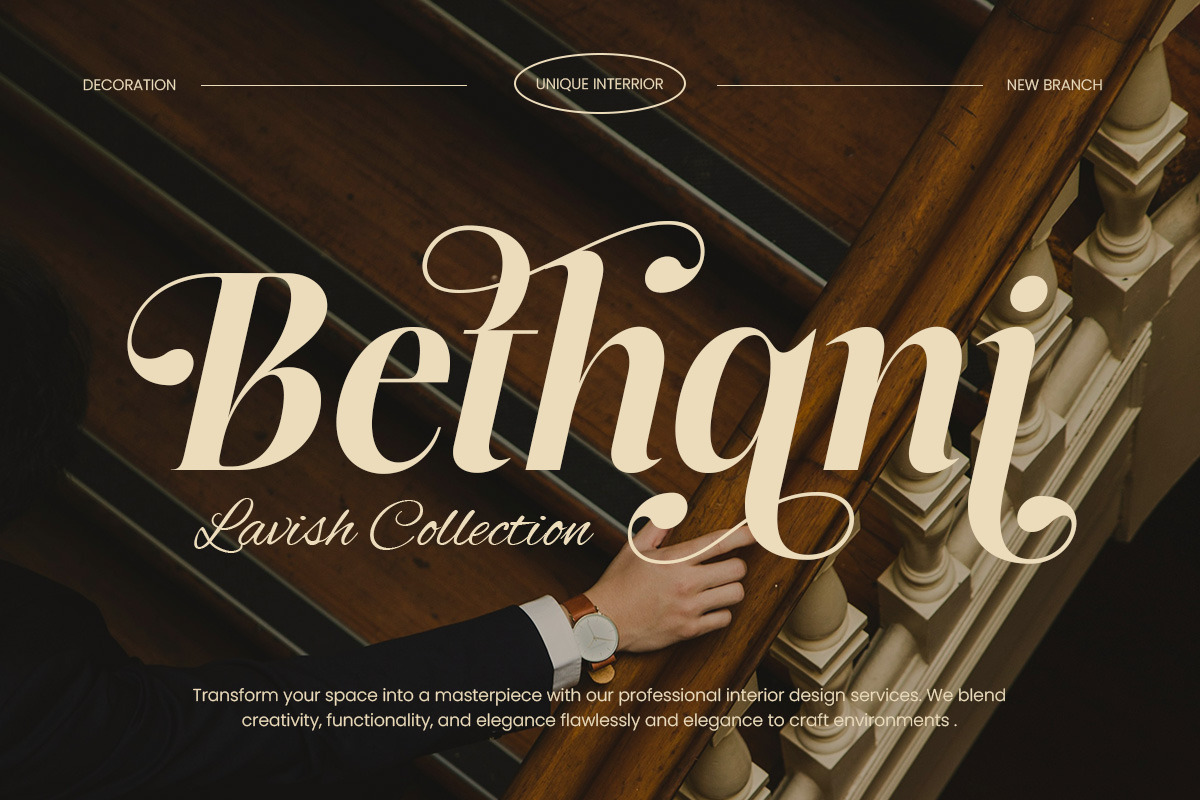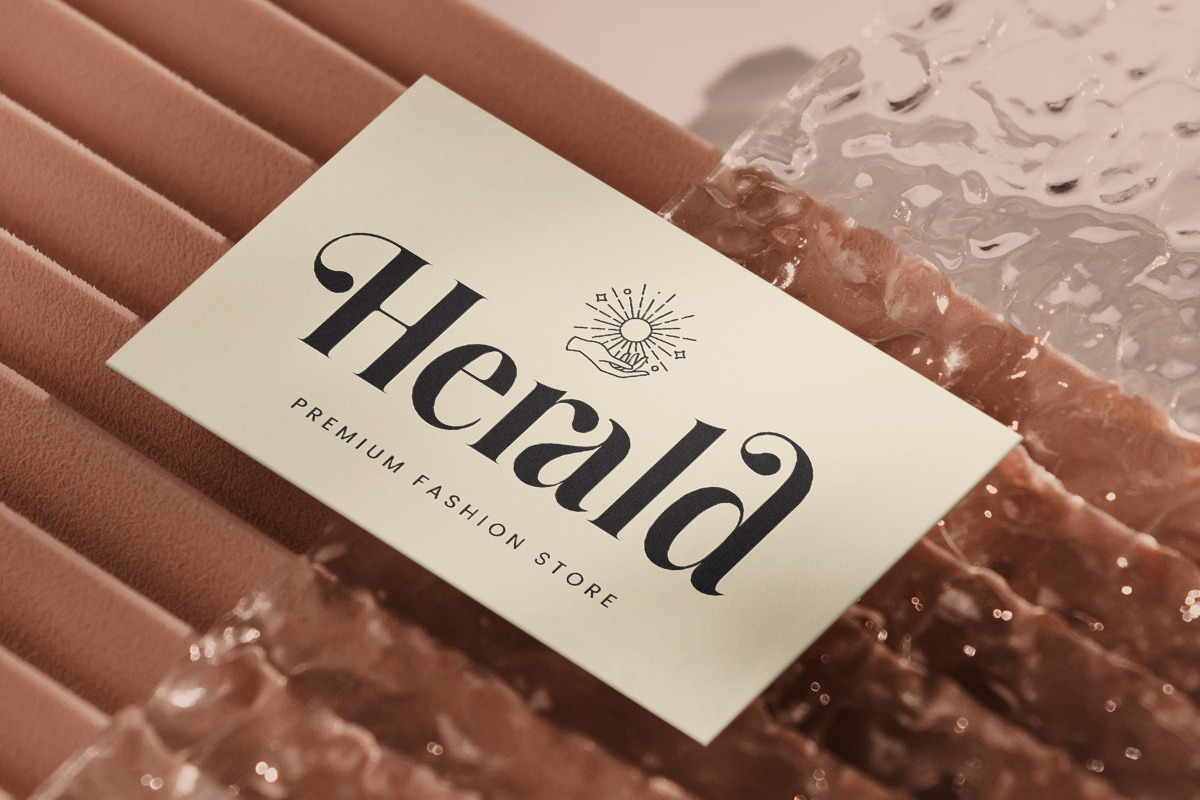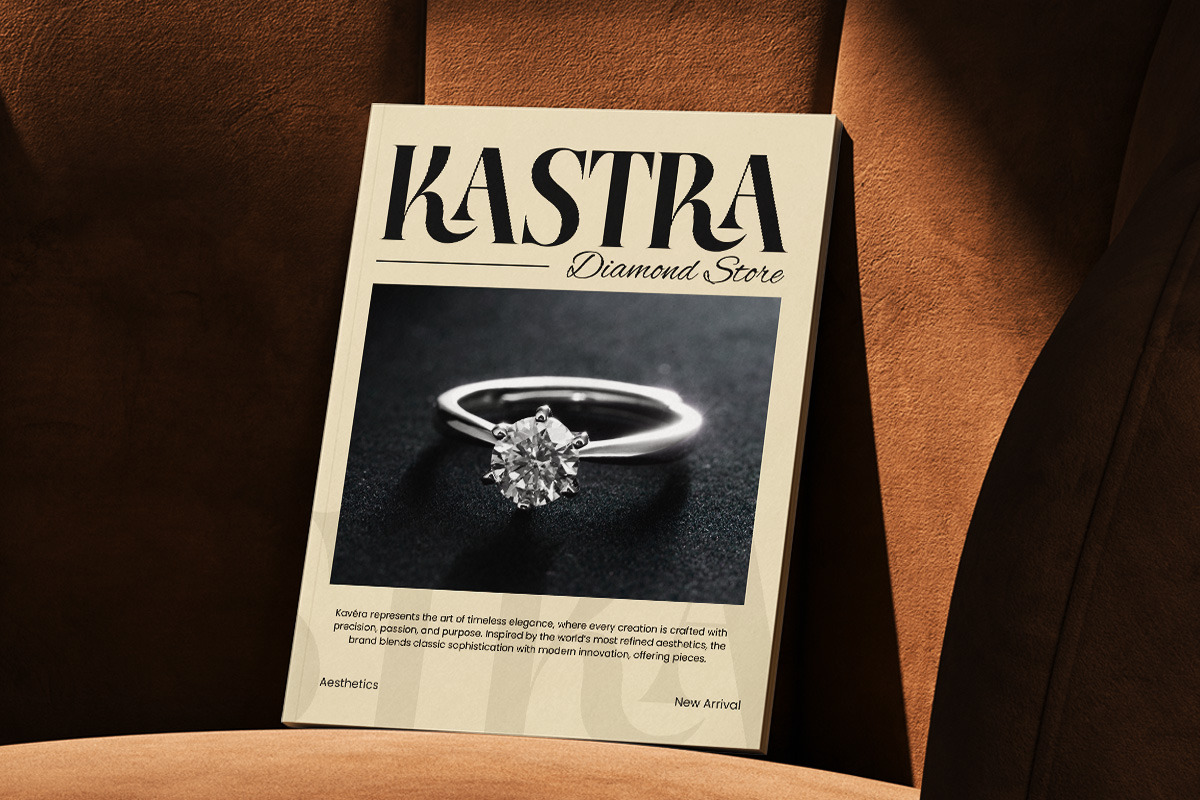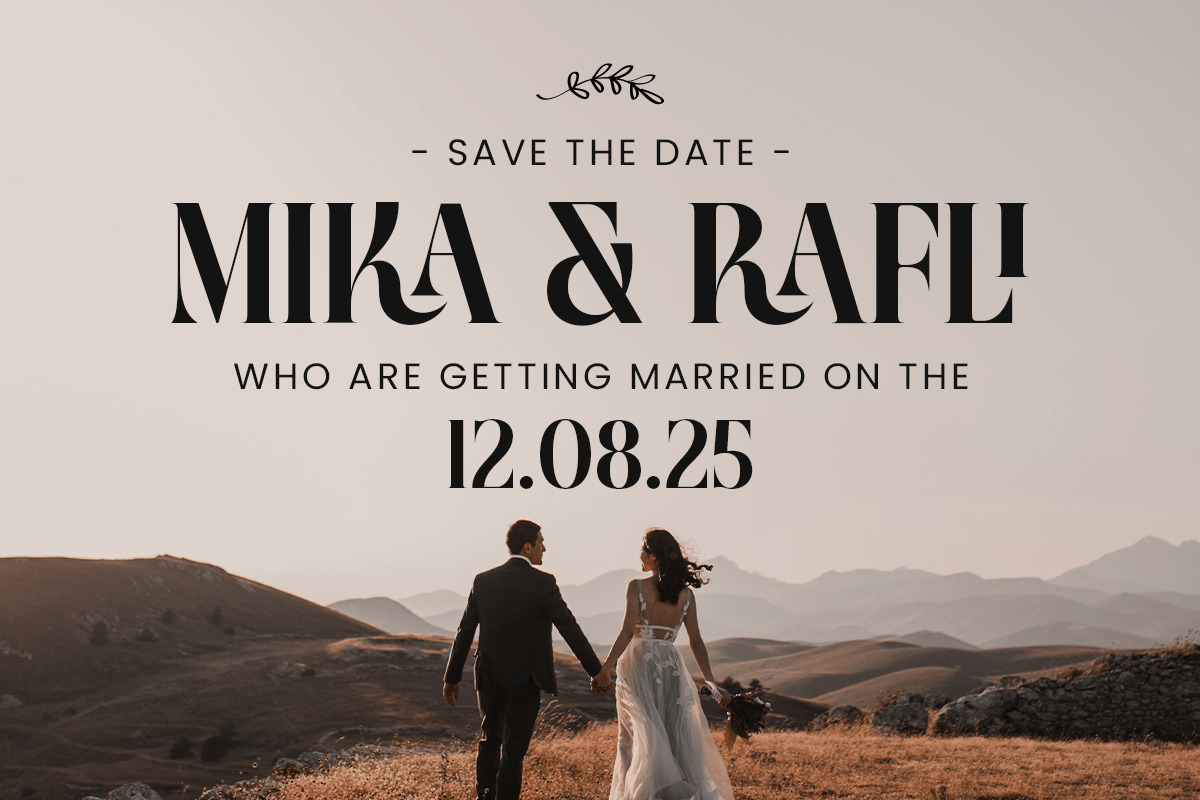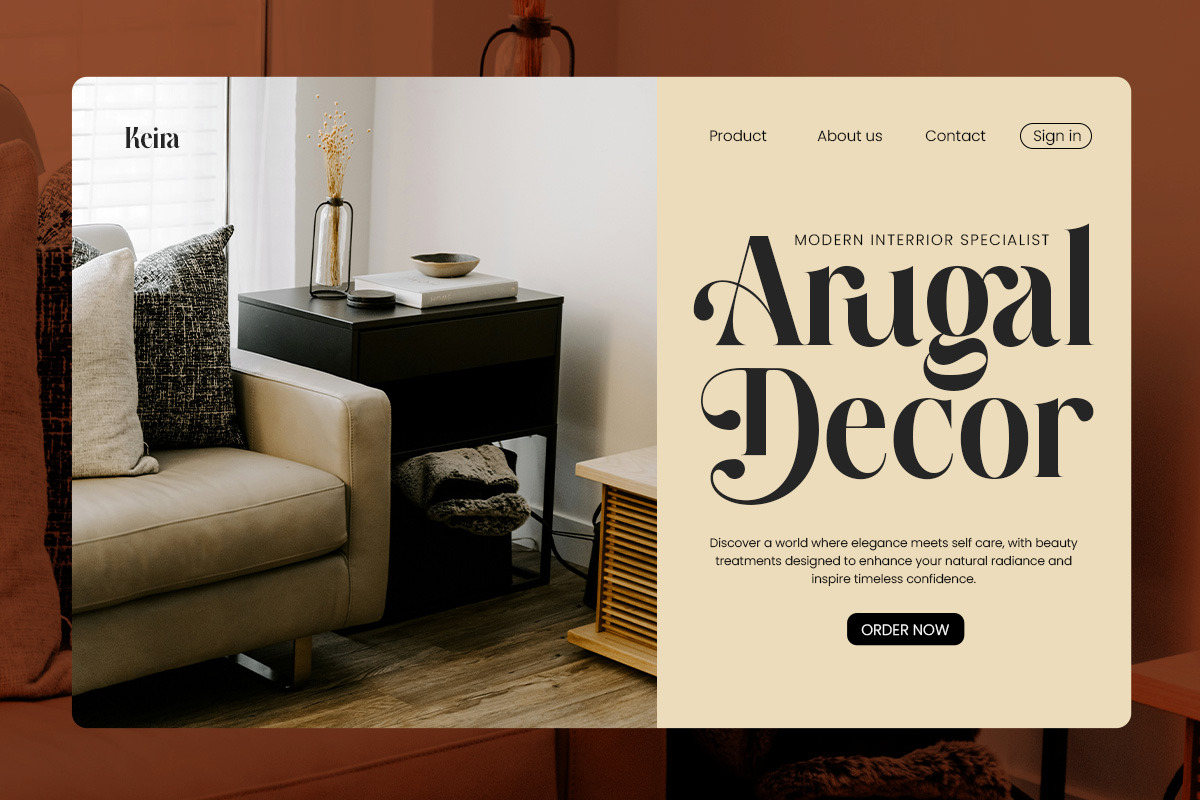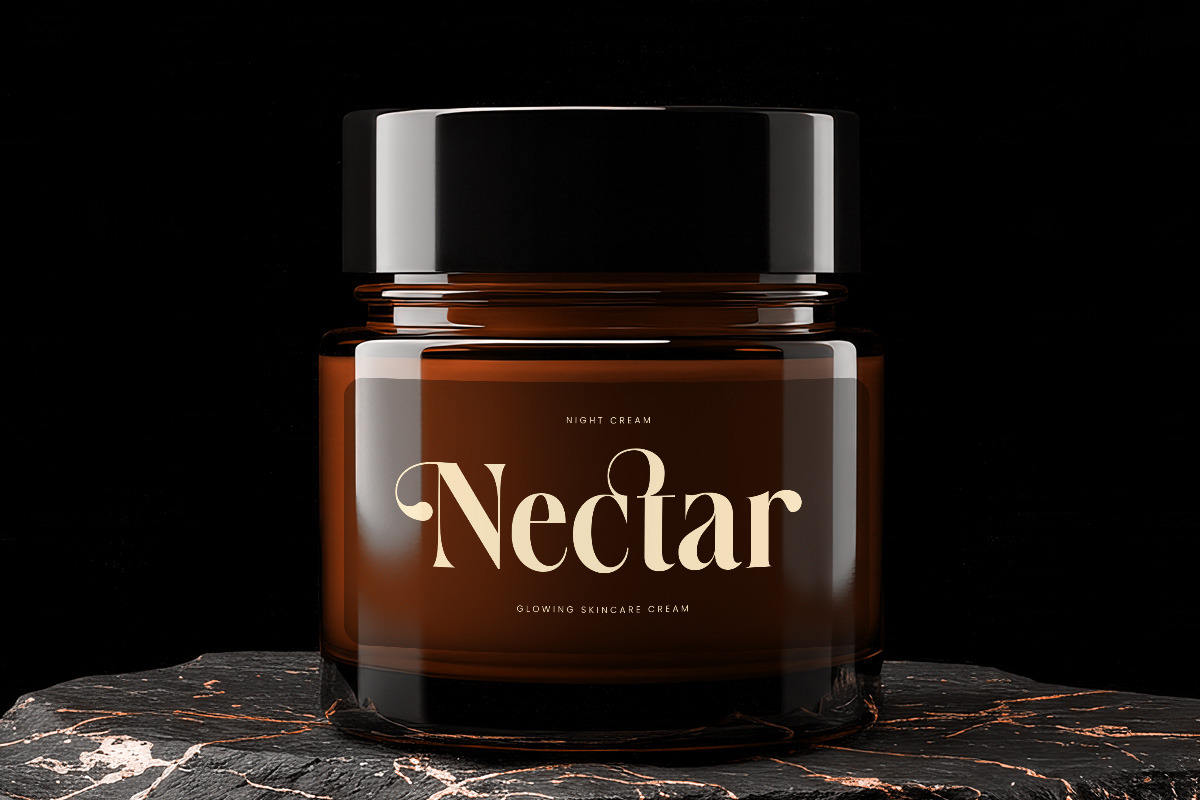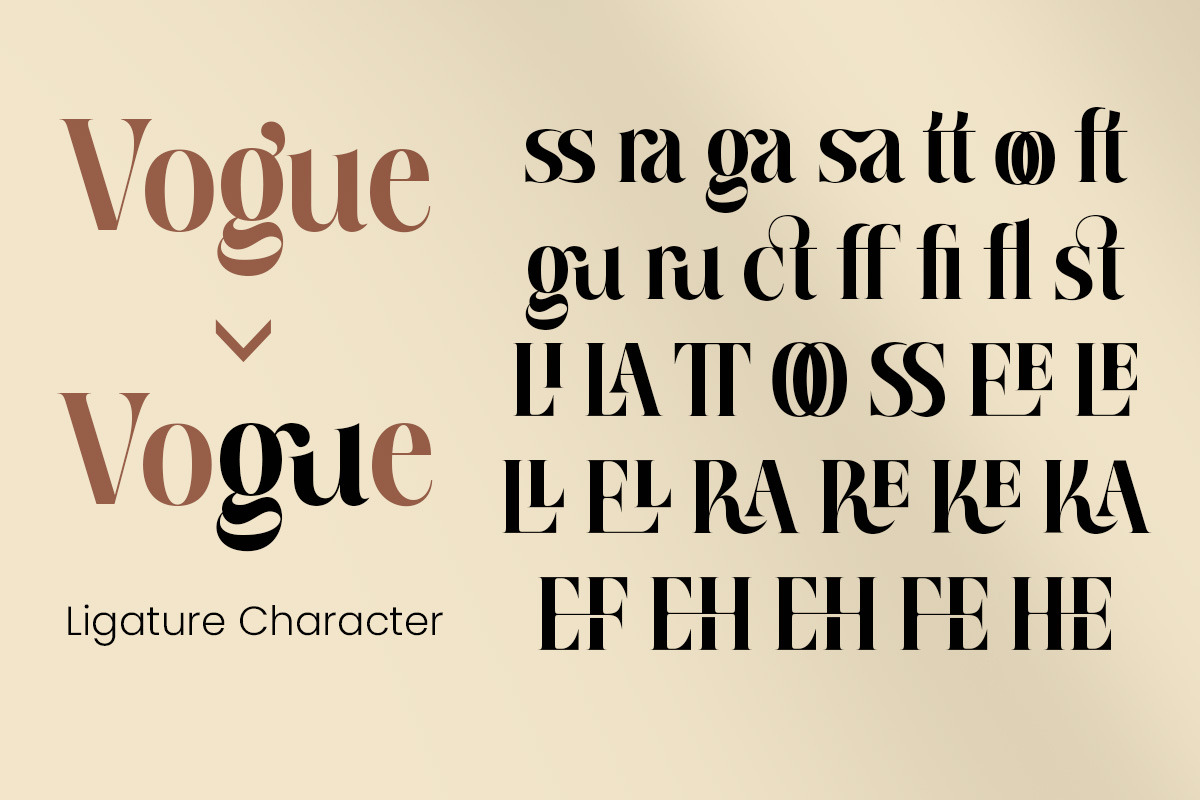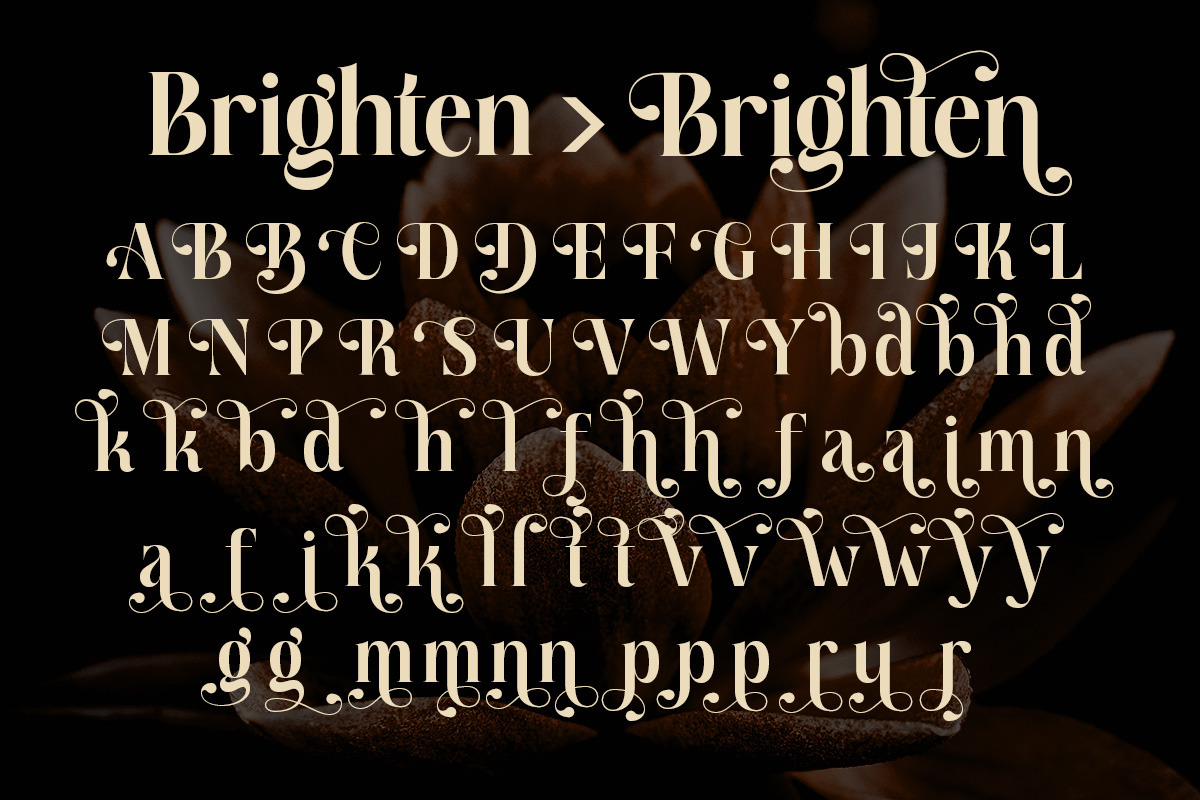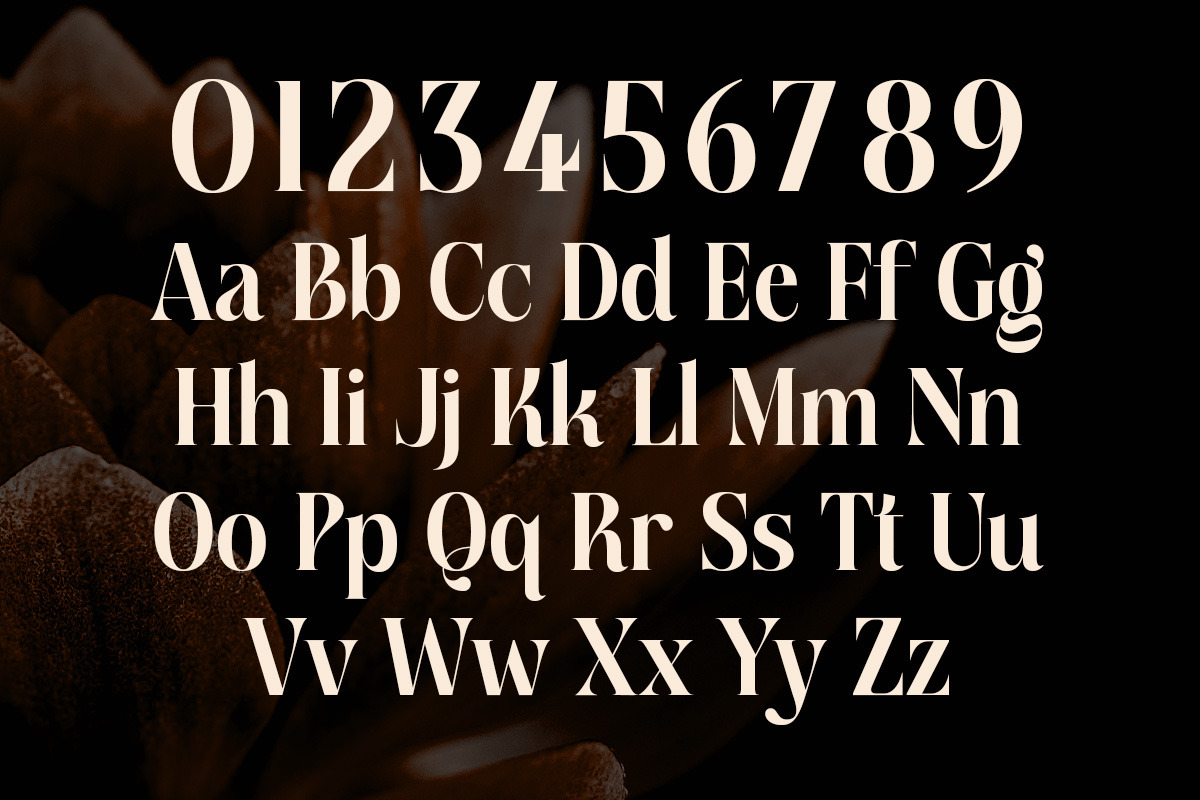
Lissandra Claire A Cinematic Serif
Lissandra Claire is a cinematic serif font that combines timeless elegance with dramatic flair. Featuring graceful curves, high contrast strokes, and refined details, it’s perfect for movie titles, luxury branding, editorials, and high-end packaging. Its distinctive style brings sophistication and impact to any project—making your typography unforgettable.
- uppercase and lowercase
- numerals and punctuation
- OpenType features (ligatures and alternates)
Bring your designs to life with Lissandra Claire — a serif crafted for those who value cinematic beauty and timeless style.